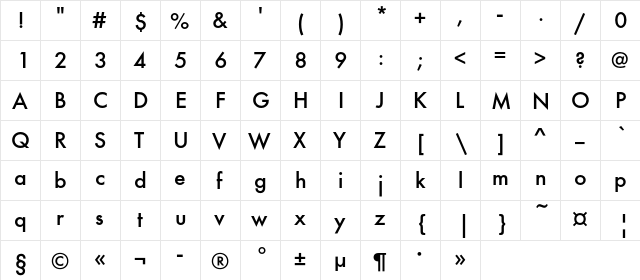
FuturaMediumC Regular
Design Context for FuturaMediumC Typeface
FuturaMediumC has a distinctly futuristic character, with geometric precision and clean angles that feel at home in technology, gaming, and sci-fi contexts.
Pro Tip: Use FuturaMediumC in combination with a neutral sans for body text. Let it define the brand voice in headlines while keeping reading comfortable elsewhere.